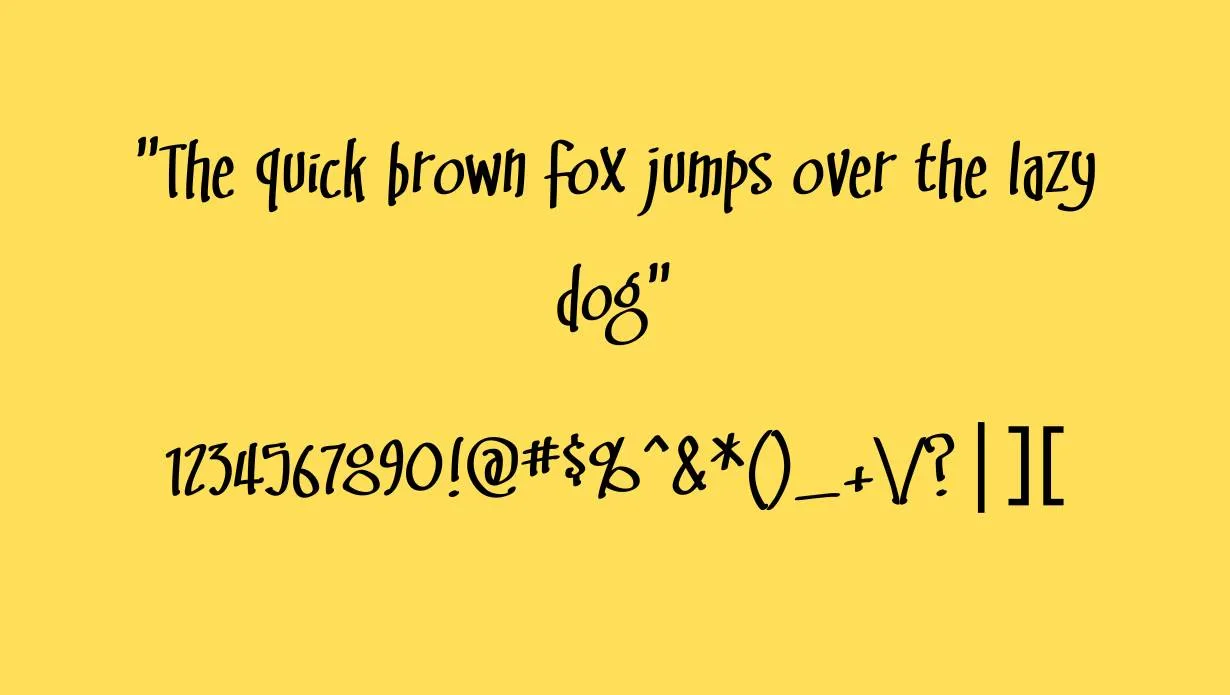
The Swing Set BB font emanates a nostalgic and playful feel, ideal for vintage posters or children’s book covers, infusing a sense of retro charm.
This font is perfect for making titles and headings look fun and evocative in programs like InDesign or Illustrator. Versatile and adaptable to online designs, it offers a whimsical and nostalgic touch across various design needs.
| Name | Swing Set BB Font |
| Designer | Blambot Comic Fonts |